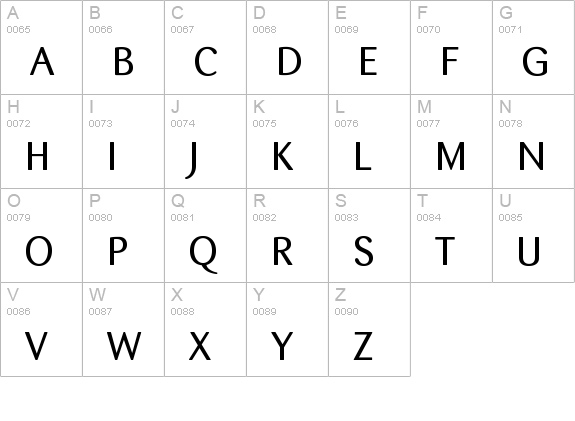
Barmeno BQ Regular is the standard, neutral variant in the Barmeno typeface family \xE2\x80\x94 well suited to general body text, paragraphs, and standard typographic work.
Barmeno BQ Regular font is a versatile and modern typeface that exudes sophistication and elegance. With its clean lines and balanced proportions, this font is perfect for a wide range of design projects, from branding to editorial layouts. The sleek and stylish appearance of Barmeno BQ Regular makes it a popular choice among designers looking to create a polished and professional look. And the best part? Barmeno BQ Regular font is available for free download at FontsMarket.com! Simply head over to the website and start using this beautiful font in your projects today. With its timeless design and effortless readability, Barmeno BQ Regular is sure to make a statement in any design you create.